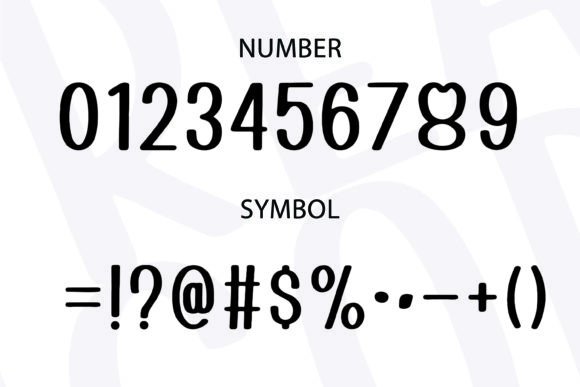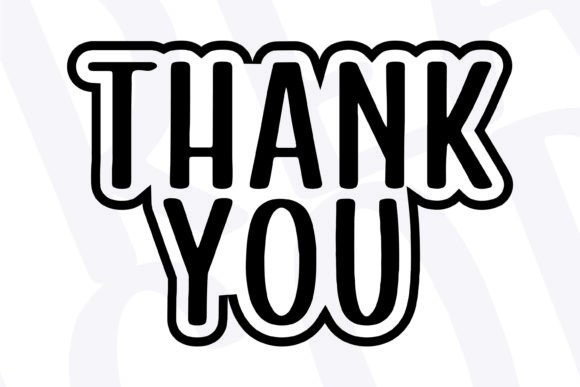
Introduction to Dreamcore Font
Have you ever stared at a blank canvas, trying to capture the essence of a dream in a single design? The spark of creativity can be elusive, but sometimes all it takes is the right tool to bring your vision to life. Enter the Dreamcore Font, a modern display font that embodies the surreal and aesthetic world of dreamy visuals.
As a designer, you know the importance of having the right design resource at your fingertips. The Dreamcore Font is a high-quality addition to any creative project, offering a unique blend of comfort, nostalgia, and fantasy that feels both familiar and otherworldly. With its soft curves, rounded edges, and clean outlines, this font is perfect for branding, posters, packaging, and digital art that demands a touch of personality and depth without sacrificing readability.
Key Features of Dreamcore Font
Honest Review: Dreamcore Font
What doesn’t work so well: ⚠️ While the Dreamcore Font is a great addition to any design arsenal, I found it to be a bit limited in terms of customization options. The font is available in a limited number of styles and weights, which may not be ideal for designers who prefer more flexibility.
- High-quality design with modern aesthetic
- Limited customization options
The Dreamcore Font is versatile and can be used in a variety of creative projects, including graphic design, digital art, and even print materials. It’s perfect for titles, headings, and body text in brochures, flyers, and business cards.